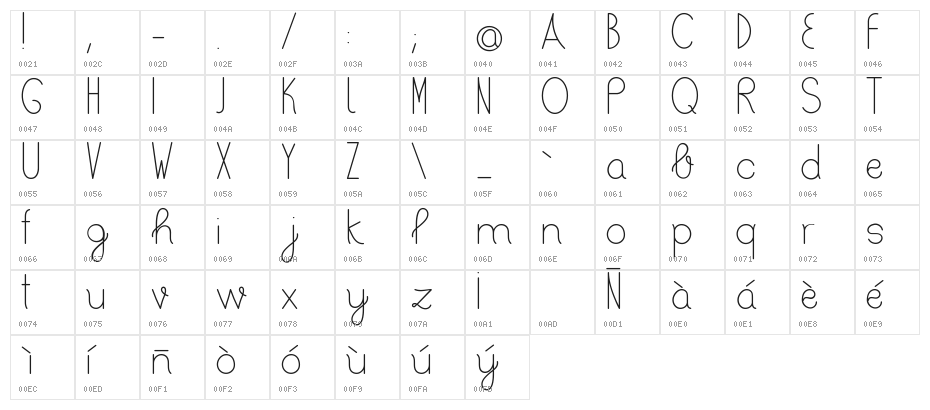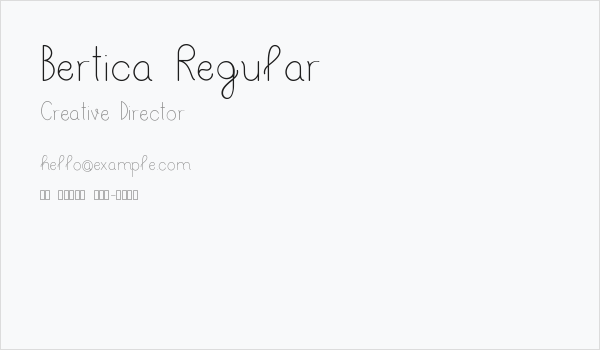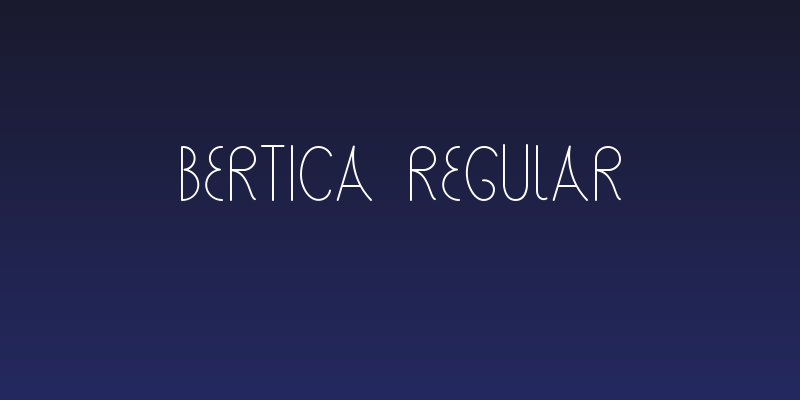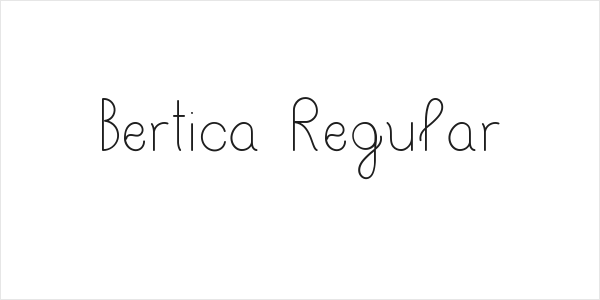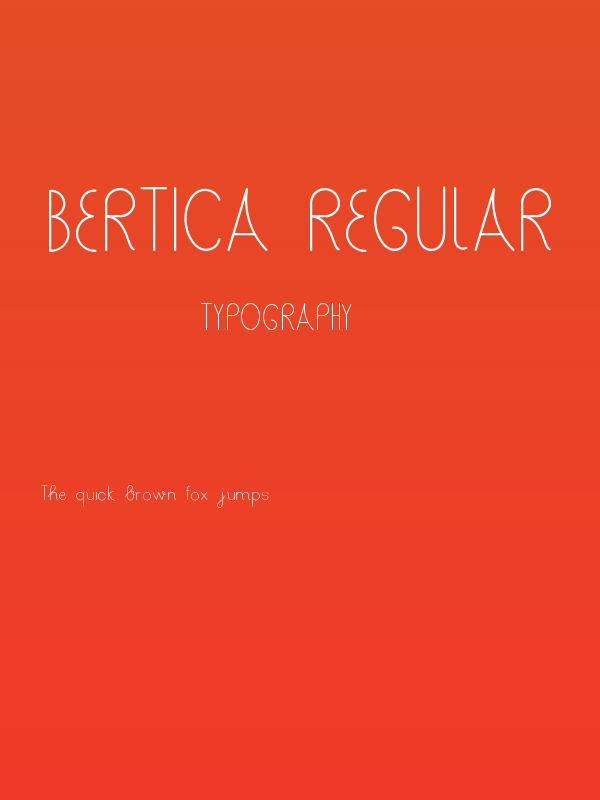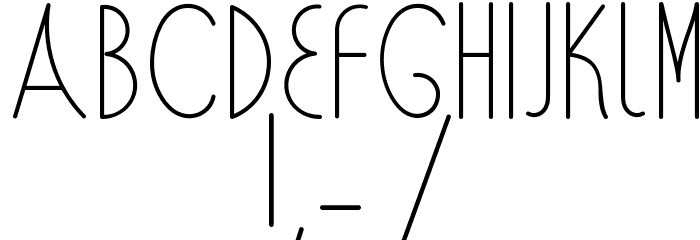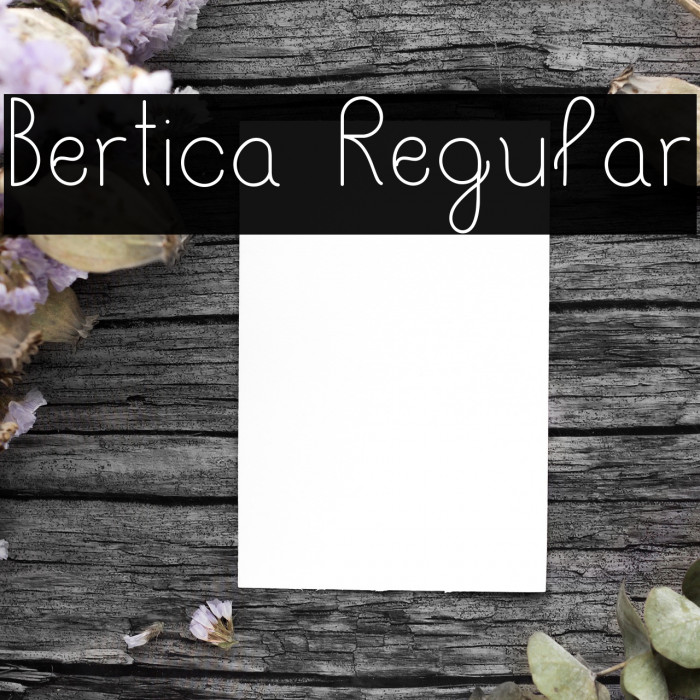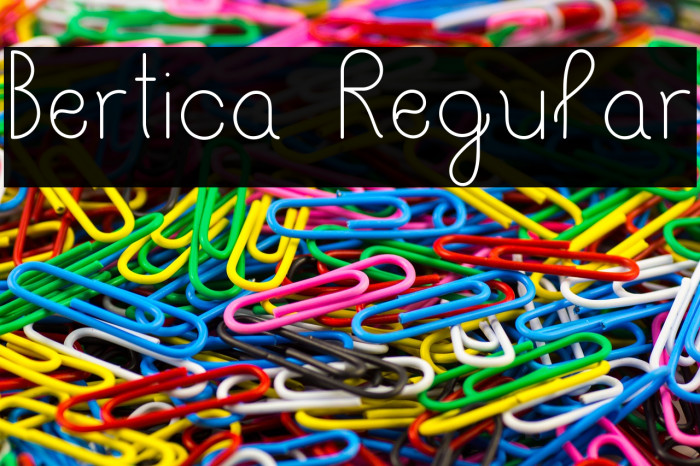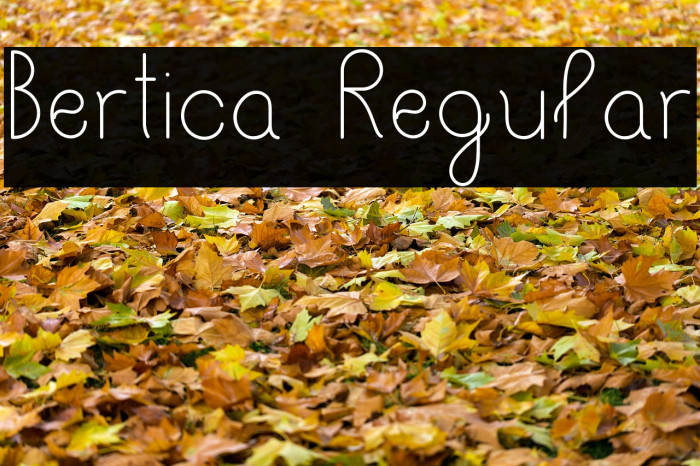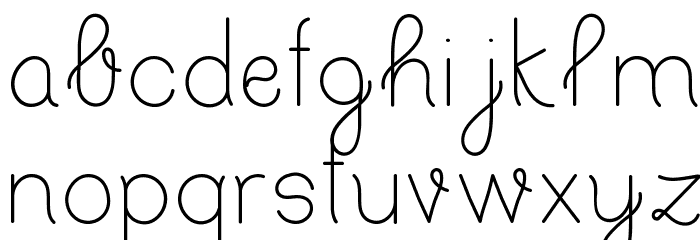
Bertica Regular Font
Bertica Regular Description
This font features a unique blend of elegance and modernity, characterized by its thin, elongated strokes and subtle curves. The uppercase letters are tall and narrow, with a distinct geometric influence, while the lowercase letters maintain a fluid, cursive-like quality. The overall design is clean and minimalistic, making it suitable for a variety of applications. The font's delicate lines and open spaces give it an airy feel, enhancing readability while maintaining a sophisticated appearance.
| Overall Style | Elegant and minimalistic |
| Use Case | Headlines, Invitations, Branding |
| Proposed Projects | Ideal for fashion magazines, wedding invitations, branding projects, and elegant packaging designs. |